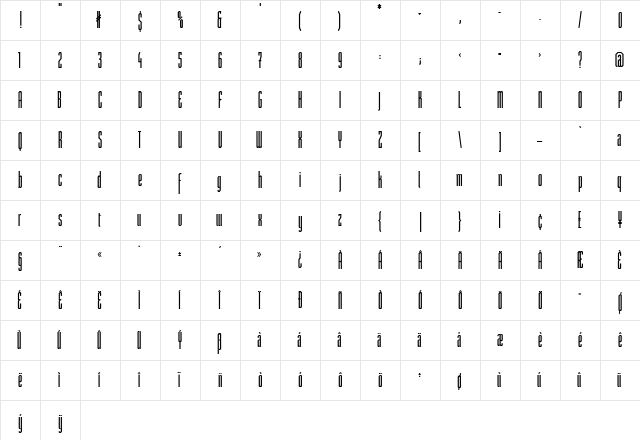
ST Moviehead Ultra-condensed Bold
| Foundry | Sascha Timplan |
| Designer | Sascha Timplan |
Design Context for ST Moviehead Typeface
ST Moviehead takes a measured approach to typography — its balanced proportions and neutral character make it a reliable workhorse for both digital and print work. The heavy weight commands attention and anchors typographic hierarchies. Its narrow stance lets it pack a punch even in space-constrained designs.